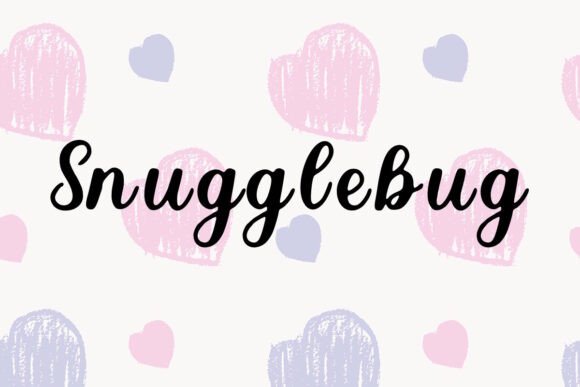
Snugglebug Font: The Ultimate Guide to Adding a Touch of Love and Whimsy to Your Designs
Are you ready to fall head over heels for a charming and playful handwritten script that’s brimming with personality? Look no further than Snugglebug Font! With its sweet, bouncy curves and heartwarming vibe, this font is perfect for adding a touch of love and whimsy to your designs. Whether you’re creating romantic invitations, adorable greeting cards, or playful branding, Snugglebug is here to spread the love!
What Makes Snugglebug Font So Special?
- Playful and Whimsical: Snugglebug Font boasts a carefree and lively vibe that’s sure to capture the hearts of your audience. Its bouncy curves and irregularities give it a delightfully handmade feel that’s perfect for designs that require a touch of personality.
- Romantic and Heartwarming: With its sweet and endearing aesthetic, Snugglebug Font is ideal for romantic occasions, such as weddings, anniversaries, and Valentine’s Day. It’s also perfect for creating heartwarming greeting cards and invitations that will make your loved ones feel special.
- Versatile and Adaptable: Snugglebug Font is incredibly versatile and can be used for a wide range of design projects, from branding and packaging to social media graphics and blog posts. Its playful charm works well for both digital and print designs, making it a great addition to your font library.
10 Creative Ways to Use Snugglebug Font in Your Designs
- Romantic Invitations: Create stunning wedding invitations, save-the-date cards, and Valentine’s Day messages that will leave your loved ones feeling special.
- Greeting Cards: Design adorable greeting cards for birthdays, anniversaries, and holidays that will put a smile on the recipient’s face.
- Branding and Packaging: Add a touch of whimsy to your brand’s identity with Snugglebug Font. Use it for packaging, labels, and business cards to create a memorable and playful brand image.
- Social Media Graphics: Create engaging social media graphics, such as Instagram posts and Facebook covers, that showcase your brand’s personality and charm.
- Blog Posts and Articles: Use Snugglebug Font to add a touch of warmth and personality to your blog posts and articles. It’s perfect for lifestyle, fashion, and food blogs that require a more approachable tone.
- Children’s Designs: Snugglebug Font is perfect for designing materials for kids, such as children’s books, activity sheets, and educational resources.
- Party Decorations: Create adorable party decorations, such as banners, garlands, and cupcake toppers, that will add a touch of magic to any celebration.
- Wedding Decor: Use Snugglebug Font to create beautiful wedding decor, such as place cards, table runners, and wedding signs.
- Gift Tags and Labels: Design cute gift tags and labels that will add a personal touch to your gifts.
- Infographics: Add a touch of whimsy to your infographics with Snugglebug Font. It’s perfect for creating engaging and shareable visual content.
The Benefits of Using Snugglebug Font in Your Designs
- Unique and Memorable: Snugglebug Font is a unique and memorable font that will help your designs stand out from the crowd.
- Emotional Connection: The heartwarming and playful vibe of Snugglebug Font creates an emotional connection with your audience, making your designs more relatable and engaging.
- Easy to Read: Despite its playful nature, Snugglebug Font is easy to read and understand, making it perfect for body text and captions.
- Scalable: Snugglebug Font is highly scalable and can be used for a wide range of design projects, from small icons to large billboards.
- Timeless: The classic and elegant feel of Snugglebug Font ensures that your designs will remain timeless and relevant for years to come.
Tips and Tricks for Using Snugglebug Font Like a Pro
- Pair it with Other Fonts: Experiment with pairing Snugglebug Font with other fonts to create a unique and visually appealing combination.
- Use it for Headings: Use Snugglebug Font for headings and titles to add a touch of personality and whimsy to your designs.
- Adjust the Size and Color: Experiment with different sizes and colors to create visual interest and hierarchy in your designs.
- Add Texture and Patterns: Add texture and patterns to your designs to create a more tactile and engaging feel.
- Experiment with Ligatures: Take advantage of Snugglebug Font’s ligatures to create a more natural and fluid look in your designs.
Get Ready to Fall in Love with Snugglebug Font!
In conclusion, Snugglebug Font is a charming and playful handwritten script that’s perfect for adding a touch of love and whimsy to your designs. With its sweet, bouncy curves and heartwarming vibe, this font is sure to capture the hearts of your audience. Whether you’re creating romantic invitations, adorable greeting cards, or playful branding, Snugglebug Font is here to spread the love!